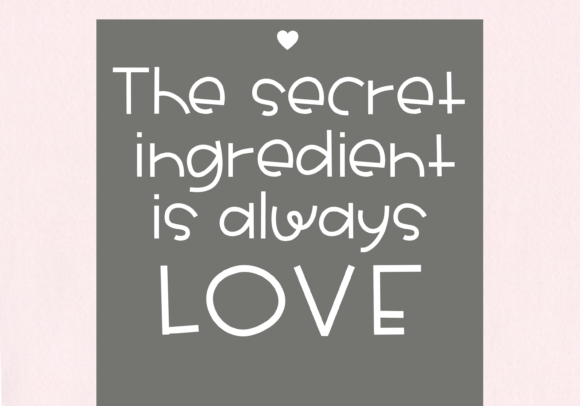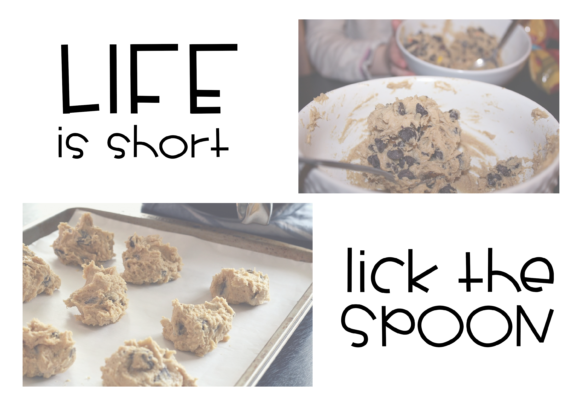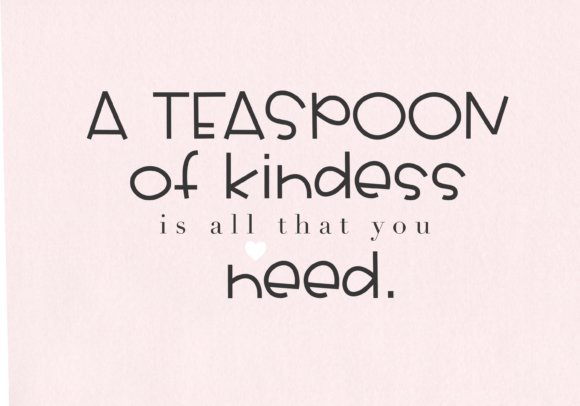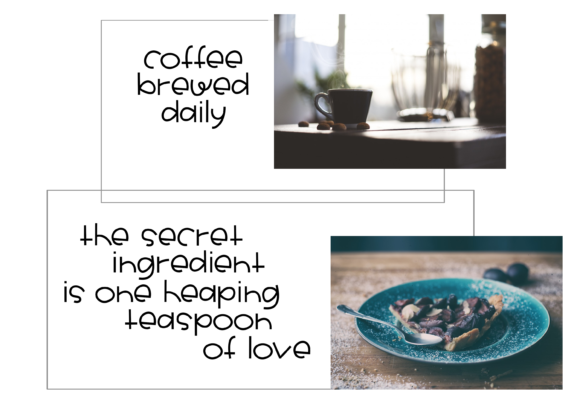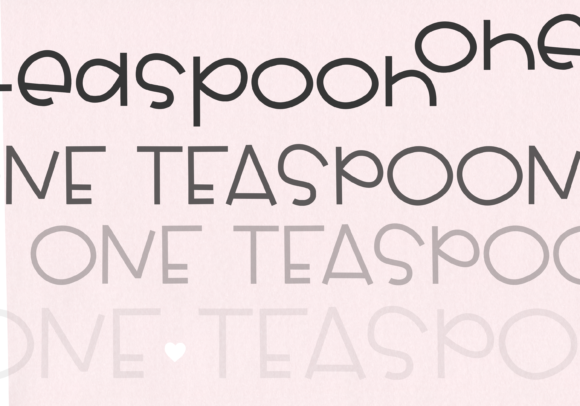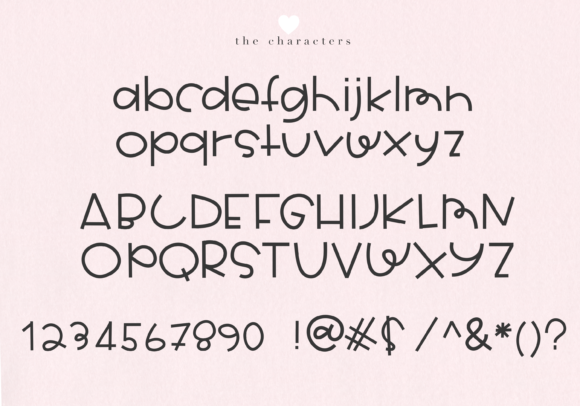
Introduction to One Teaspoon Font
One Teaspoon is a bold and fun display font with a whimsical twist.
Get inspired by its playful charm, and turn any design project into a true stand out .
Key Features of One Teaspoon Font